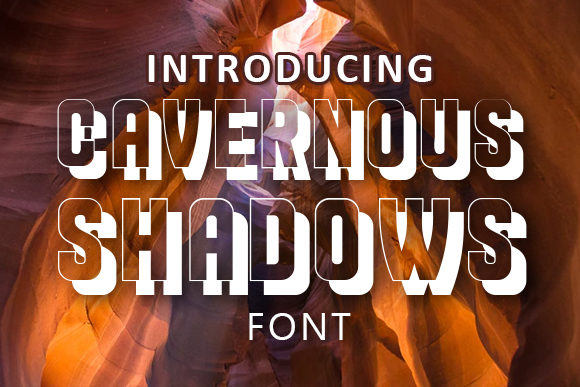
Embark on a typographic adventure with Cavernous Shadows, the display font that breathes life into your creations. Its striking 3D design and razor-sharp edges will captivate your audience, leaving an unforgettable impression.
Unleash your creativity and delve into a world of possibilities. Cavernous Shadows is a font that transcends the ordinary, empowering you to craft designs that ignite the imagination. Its bold and unapologetic nature will elevate your projects to new heights, guaranteed to make a statement.
Imagine your designs adorned with the allure of Cavernous Shadows, where shadows dance and depths unfold. Its sharp angles and captivating curves will draw the eye, inviting viewers to explore the hidden realms of your artistry.
Don't settle for the mundane – embrace the extraordinary. Cavernous Shadows is the key to unlocking your typographic potential, transforming your designs into masterpieces that resonate with emotion and dynamism. Download it today and let your creativity soar to new heights.